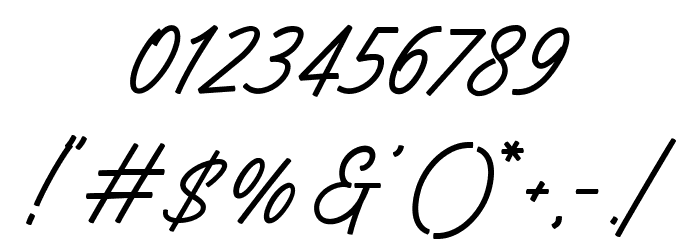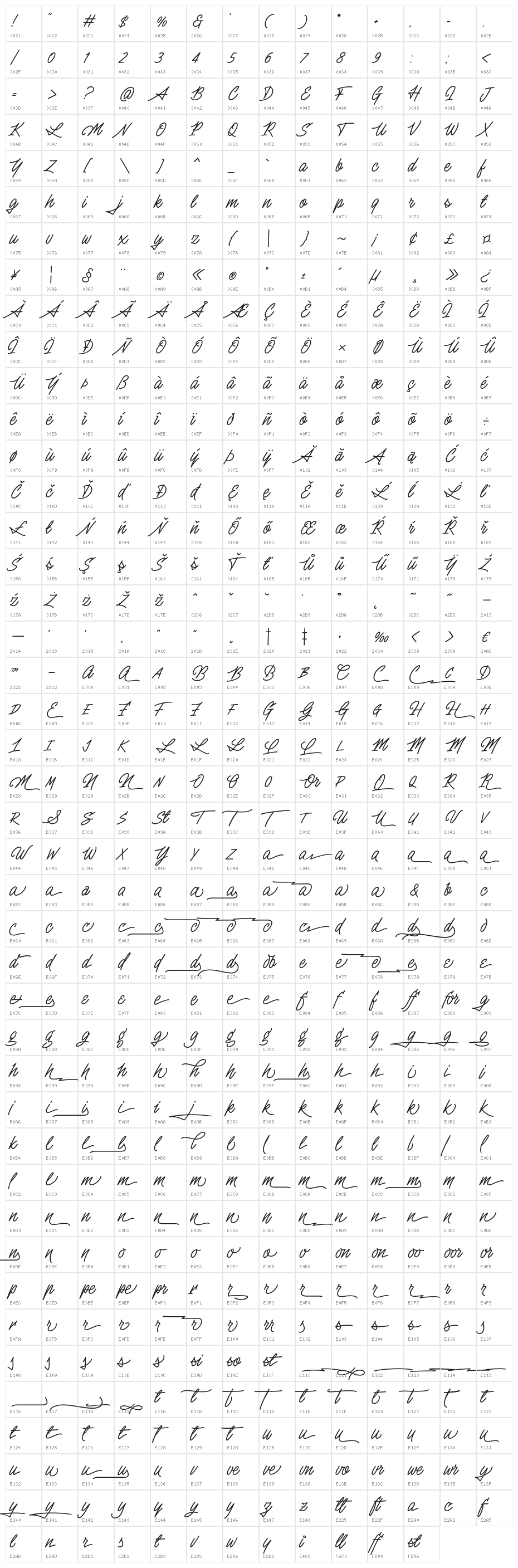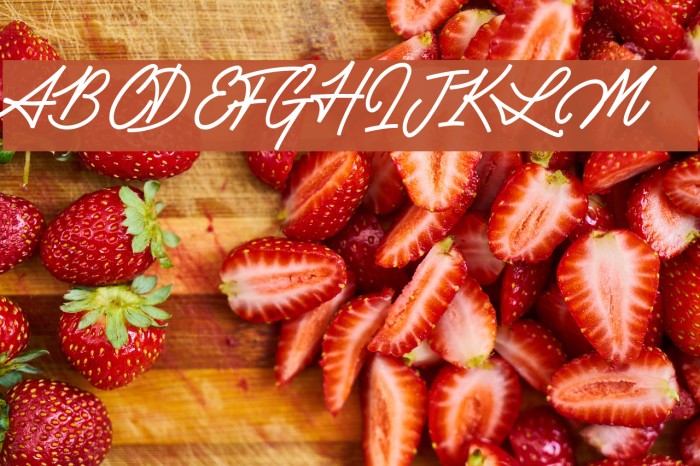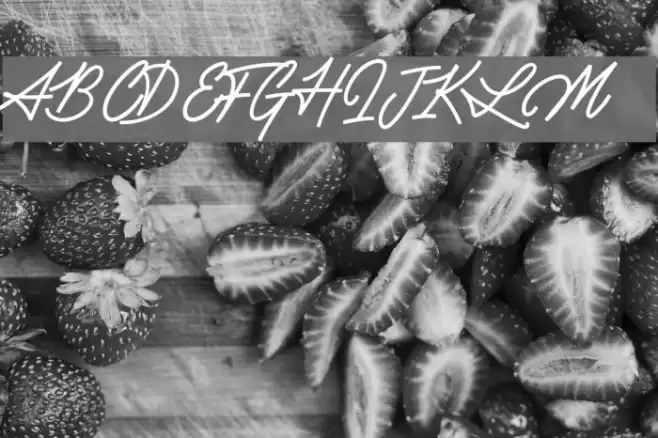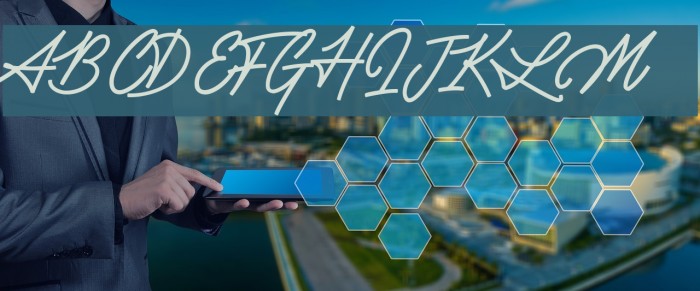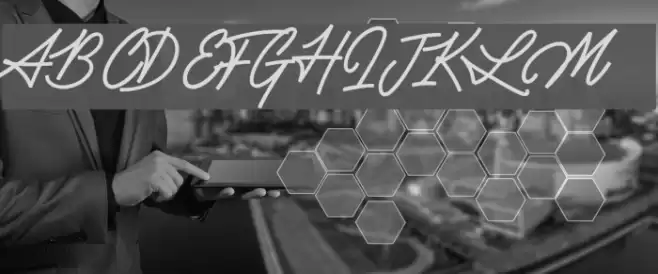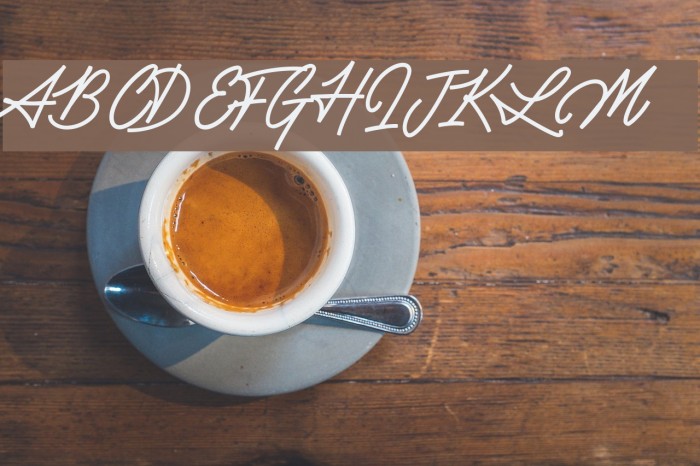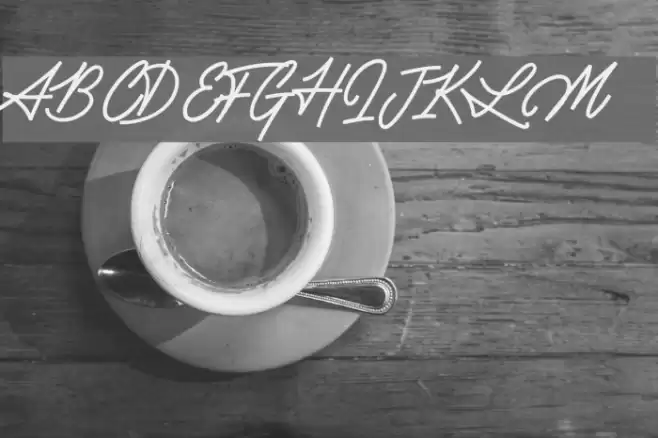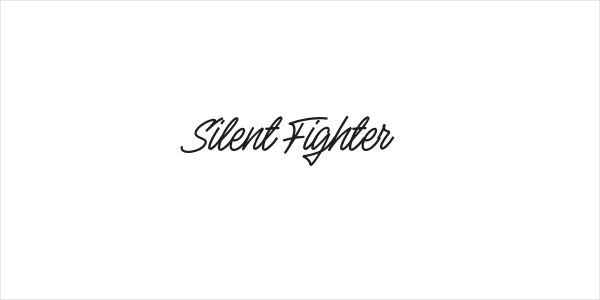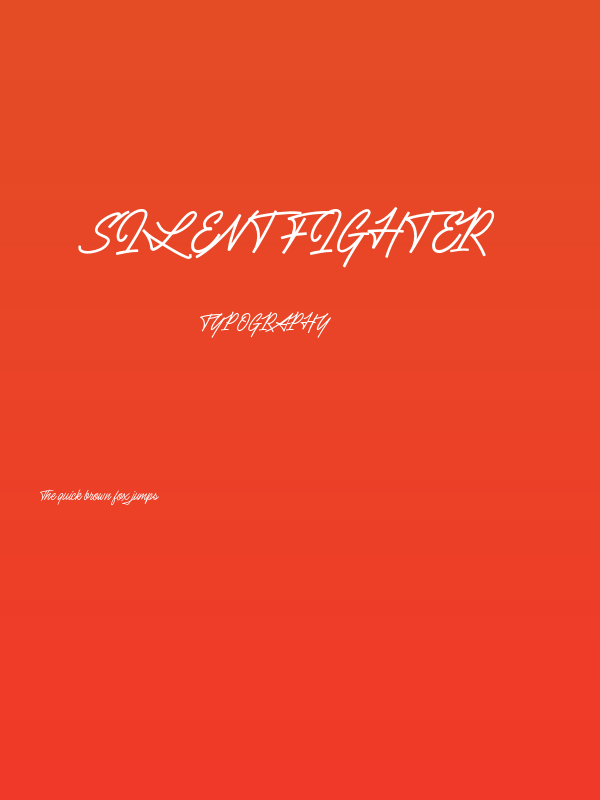
Silent Fighter Font
Silent Fighter Description
This font features a dynamic and fluid script style, characterized by its elegant, flowing lines and cursive letterforms. The uppercase letters are bold and slightly slanted, giving a sense of movement and grace. The lowercase letters maintain a consistent flow, with smooth connections between each character, enhancing readability while retaining a stylish flair. The numerals are designed to match the script's overall aesthetic, with a slight slant and rounded forms. Special characters are integrated seamlessly, maintaining the font's cohesive look. This font exudes a sense of sophistication and creativity, making it ideal for projects that require a personal touch.
| Overall Style | Elegant, Creative |